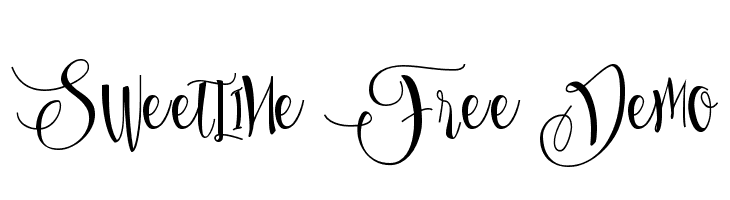
A bold, brush-style font with a hand-painted, artistic appearance.
An elegant script font with intricate swashes and decorative flourishes.
An elegant and flowing script font with high contrast and classic style.
A flowing, cursive font with elegant, connected strokes.
A playful and elegant script font with fluid, connected letterforms and medium contrast.
A bold, dynamic script font with fluid, cursive letterforms.
A charming and fluid script font with elegant, flowing curves and smooth connections.
An elegant and sophisticated script font with flowing, cursive letterforms.
An elegant and artistic script font with flowing, intricate letterforms.